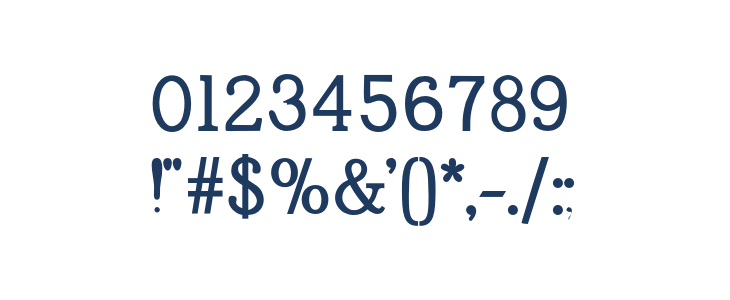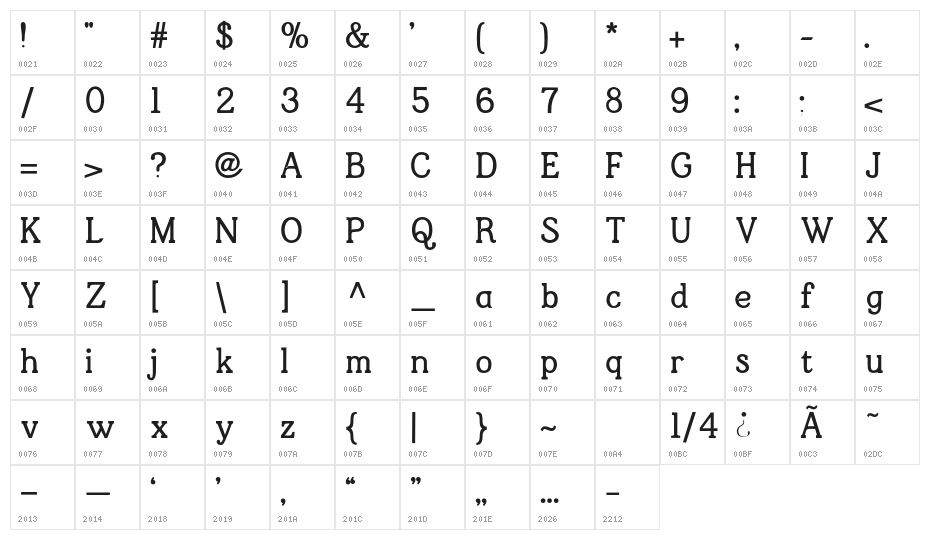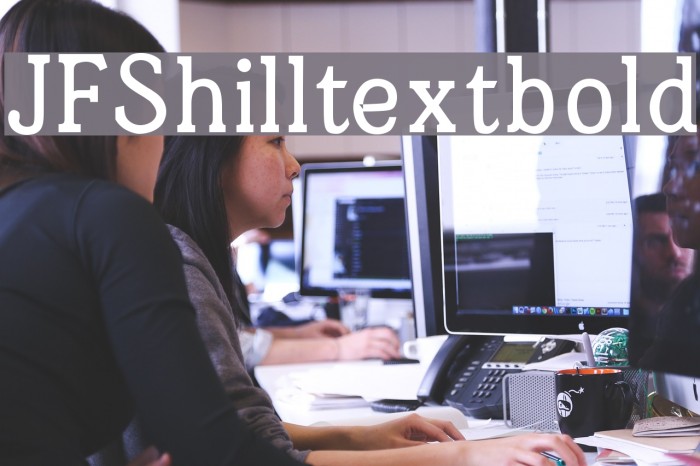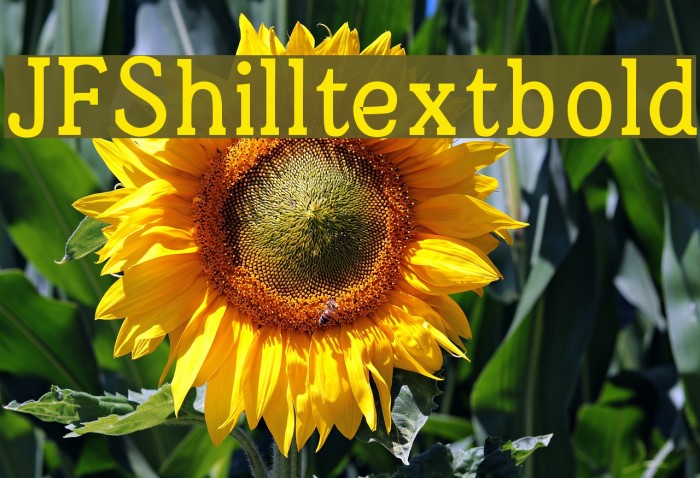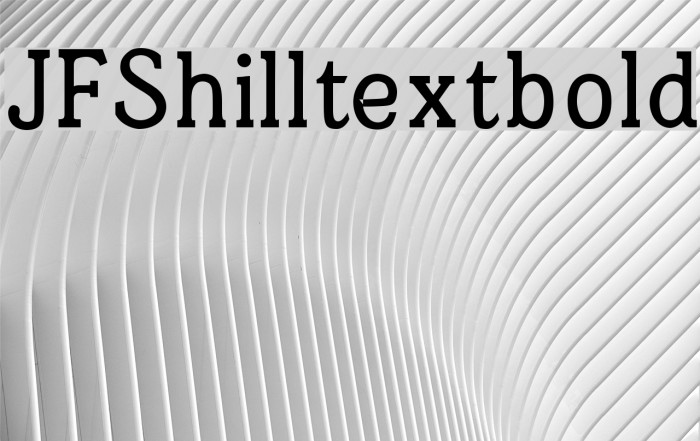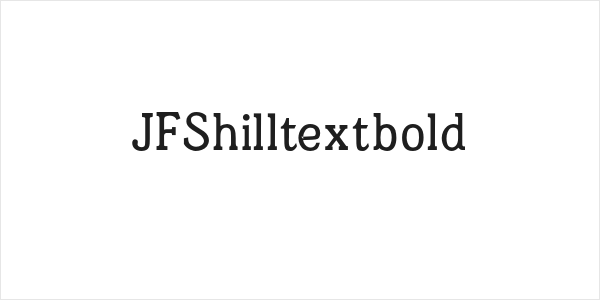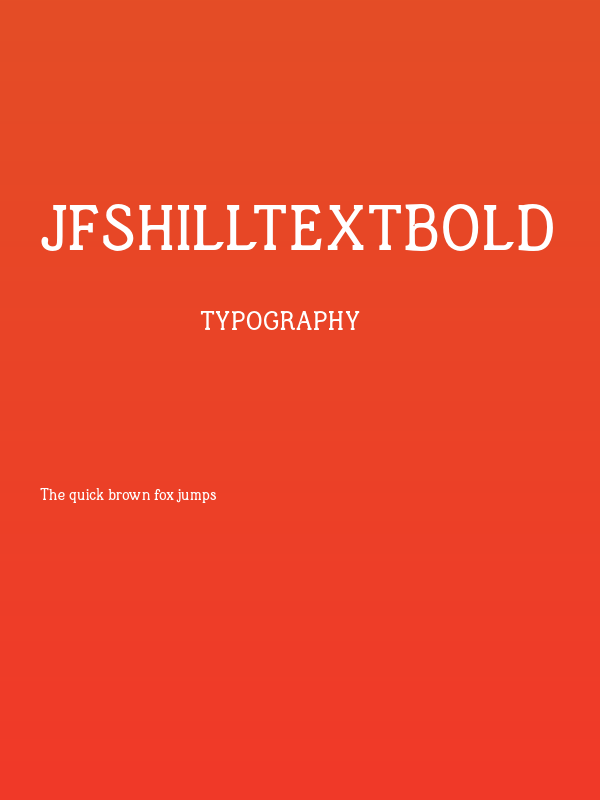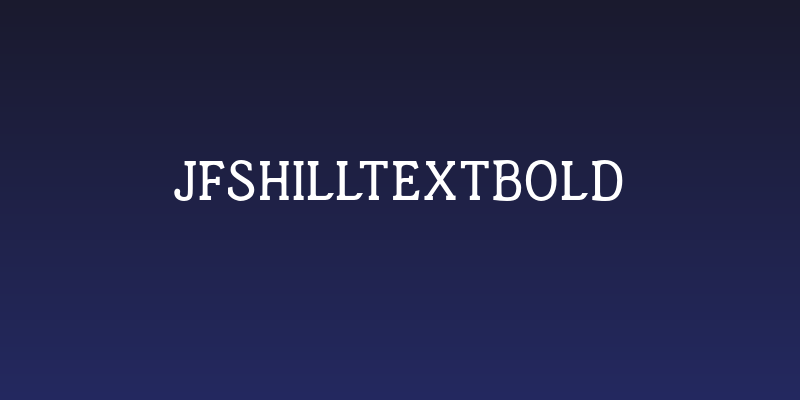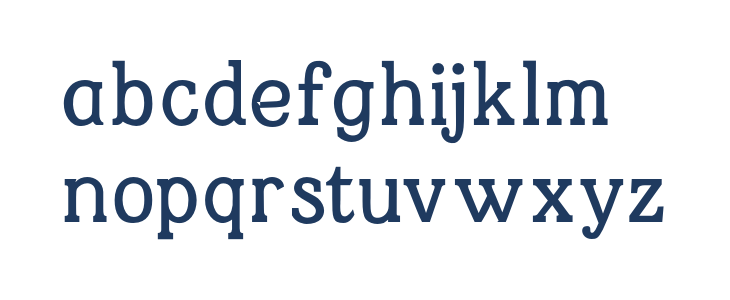
JFShilltextbold Font
JFShilltextbold Description
This font features a bold and robust serif style, characterized by its strong vertical strokes and slightly rounded edges. The uppercase letters are tall and commanding, while the lowercase letters maintain a consistent height, offering a harmonious balance. The numerals are clear and easily distinguishable, making them ideal for both display and text settings. Special characters are crafted with the same attention to detail, ensuring they integrate seamlessly with the rest of the typeface. The overall design exudes a classic yet modern feel, suitable for a variety of applications.
| Proposed Projects | Ideal for editorial design, book covers, branding, and signage where a strong, authoritative presence is desired. |